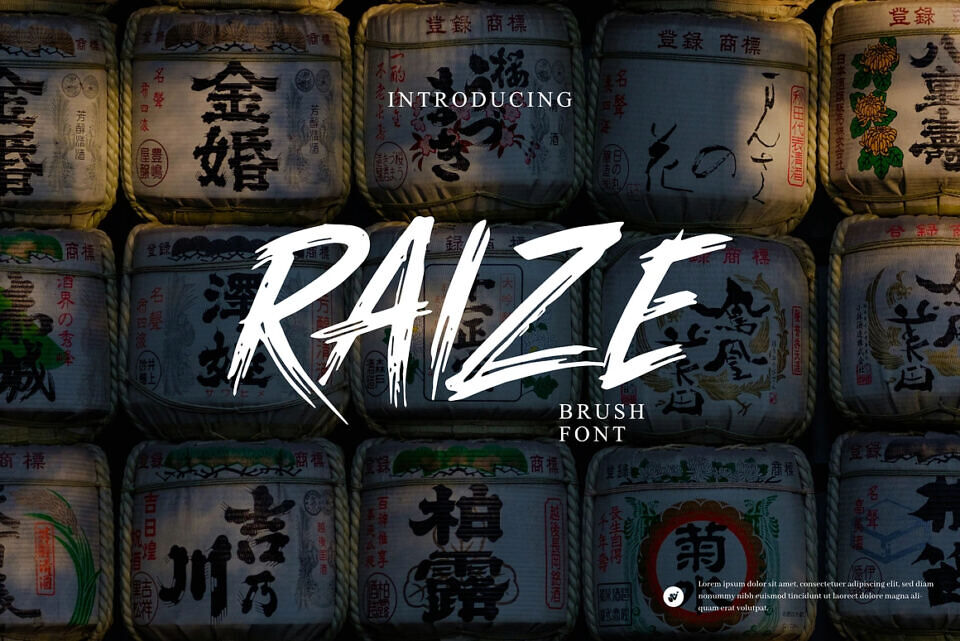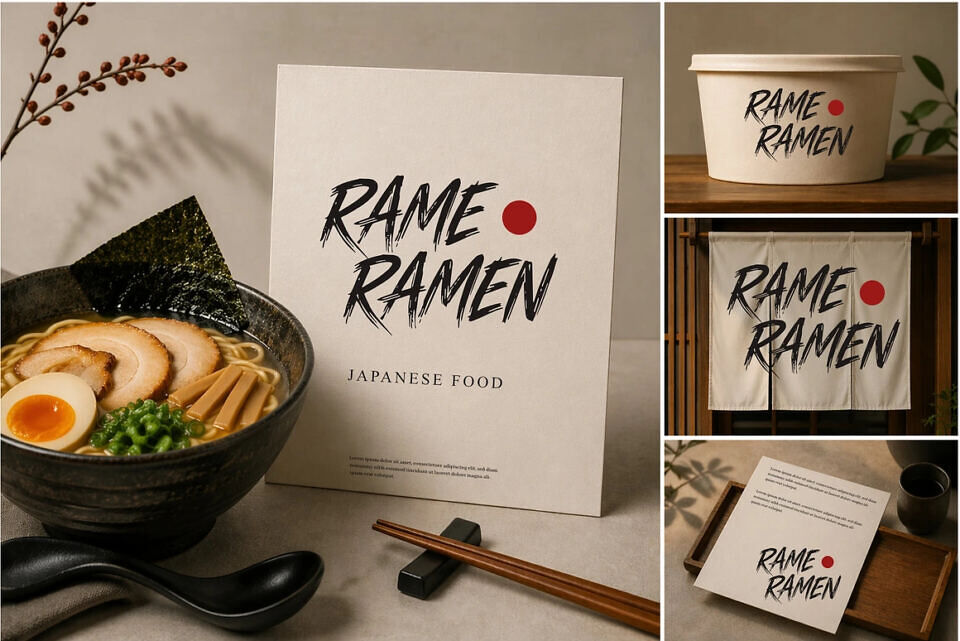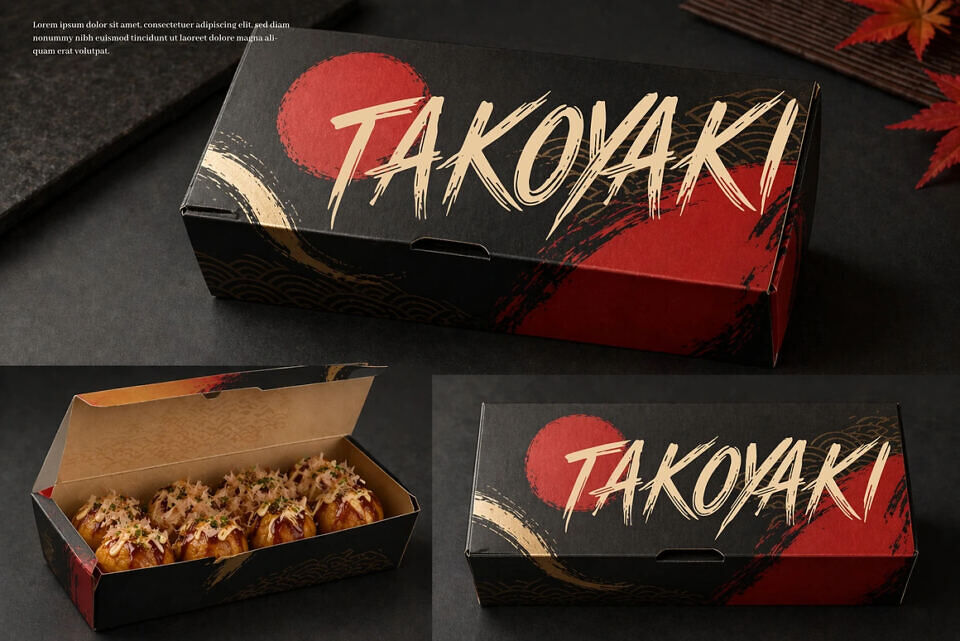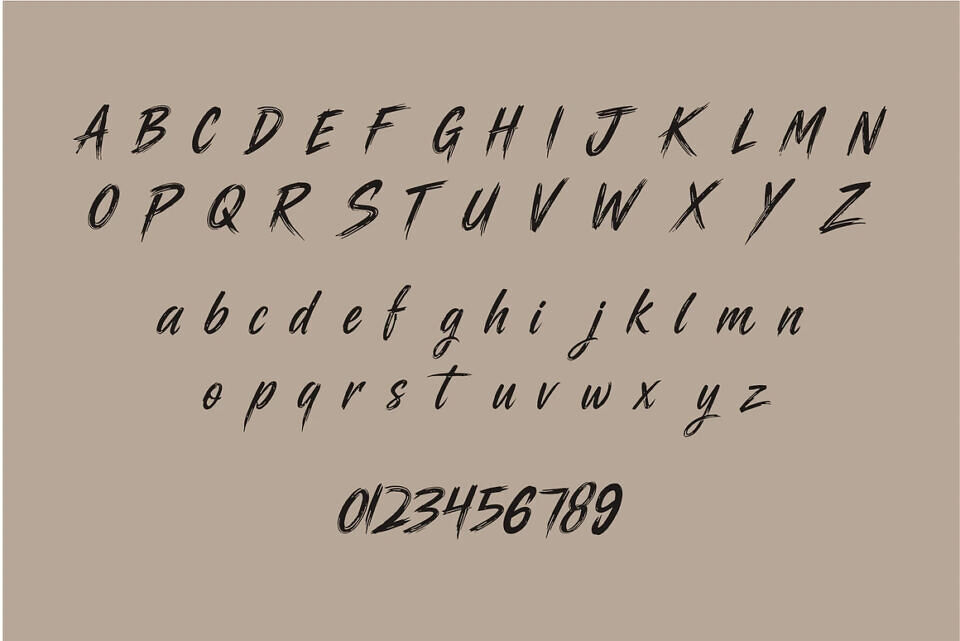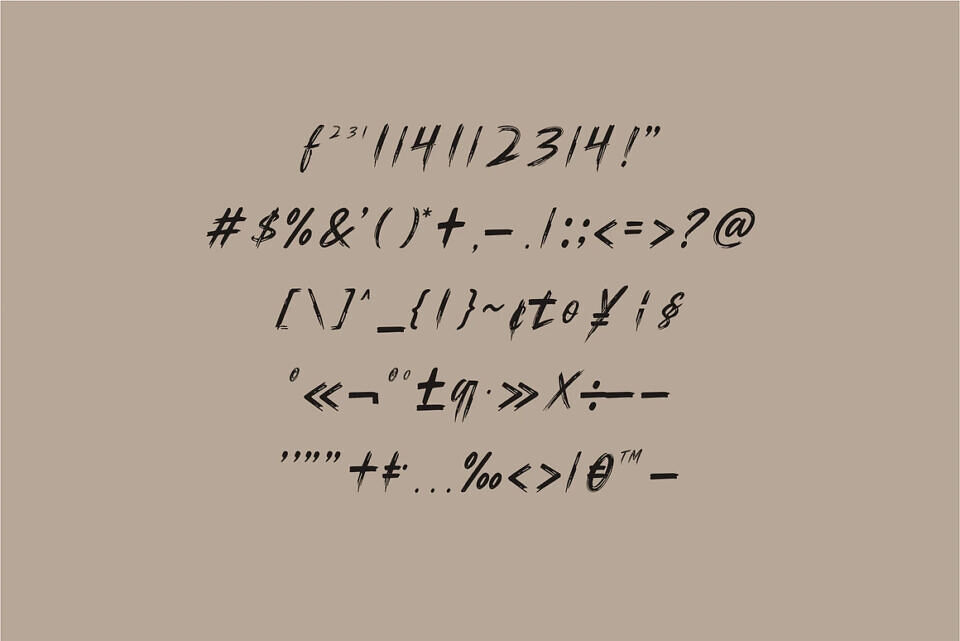
Raize Font
Raize Brush Font is a typeface that mimics natural brushstrokes, with uneven, dynamic, and expressive linework. Each letter has varying thicknesses, giving it a personal and authentic feel, as if written by hand.
This font stands out on packaging due to its distinctive design. It evokes a sense of exclusivity and handmade quality, creating a warm and creative brand image. It’s ideal for products like artisanal foods, trendy drinks, natural cosmetics, and fashion brands, helping to establish a consumer-friendly identity.